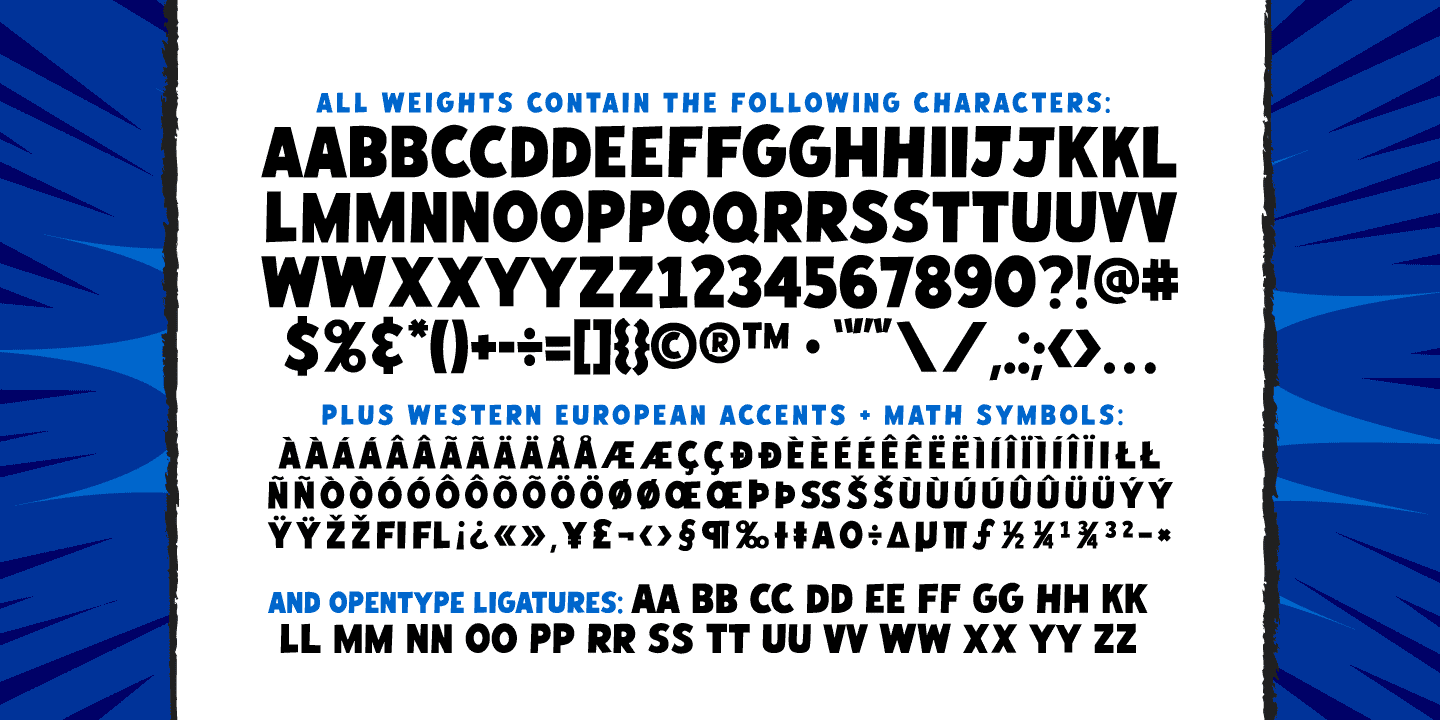
About This Man This Monster
Half Man, Half Monster, Comicraft's latest variable font hybrid, is not only your burly, hard-edged, upfront, and blunt buddy, it's also your rough-hewn, tough and grim, rocky-featured pal! Not just Two-in-One, our latest offering combines Four…